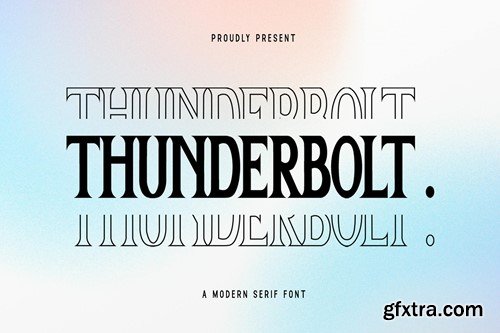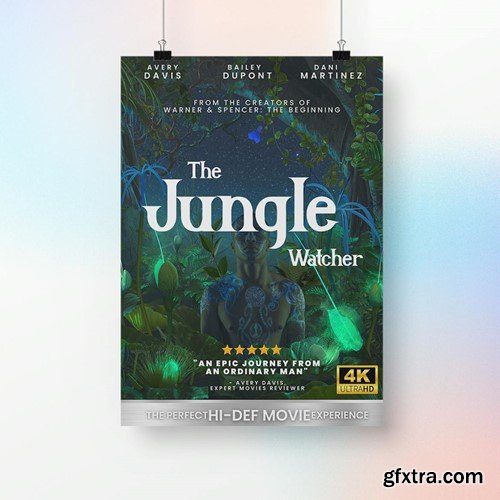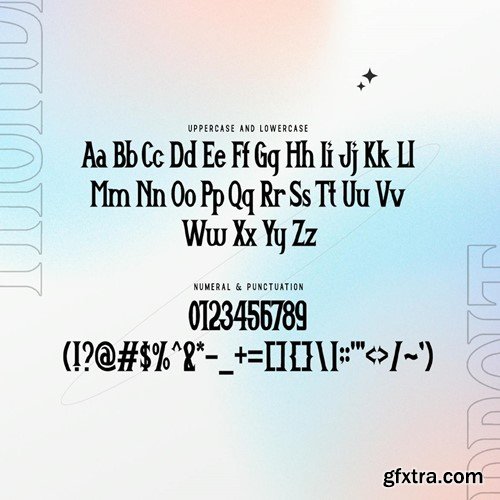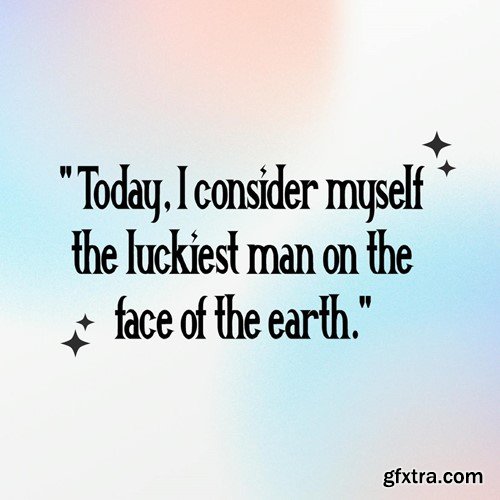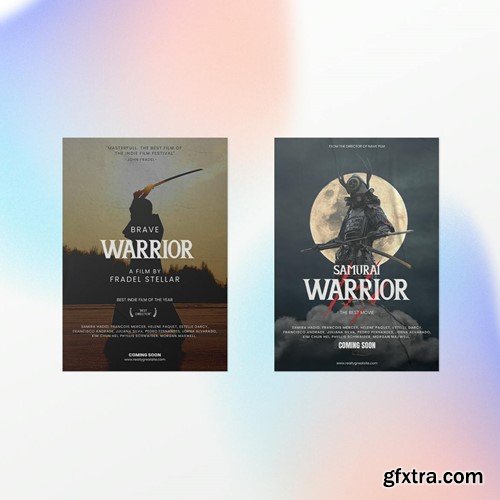
Thunderbolt - A Modern Serif Font Thunderbolt is a dynamic modern serif font that strikes a perfect balance between tradition and innovation. Designed to capture attention, this font is ideal for impactful headlines, elegant logos, and sophisticated print materials. Thunderbolt’s sharp serifs and refined curves provide a distinctive and commanding presence, making it a versatile choice for various design projects. You will receive the font files in TTF, OTF, and WOFF formats Crafted with precision, Thunderbolt combines classic serif elements with modern aesthetics, resulting in a typeface that is both stylish and functional. Its bold yet elegant design ensures readability and visual appeal, whether used in digital interfaces or printed media. The font's comprehensive character set supports multiple languages, making it suitable for global branding and communication. Embrace the power and elegance of Thunderbolt, a font that brings together the best of both worlds. Its unique style and adaptability make it an essential addition to any designer's toolkit. Elevate your creative projects with Thunderbolt and leave a lasting impression with its bold and sophisticated look.